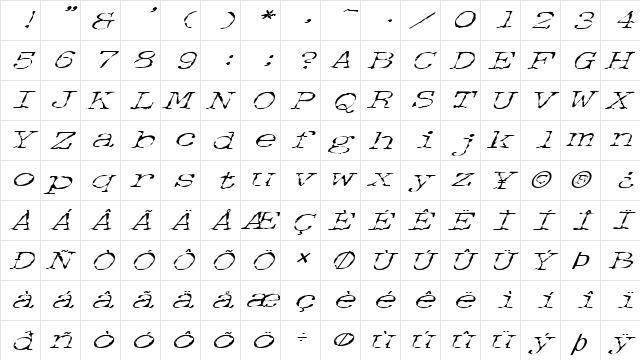
FZ DIGITAL 2 ITALIC Normal
Design Context for FZ DIGITAL 2 ITALIC Typeface
FZ DIGITAL 2 ITALIC channels digital-age aesthetics through its sharp, structured letterforms — ideal for brands that want to signal innovation. The slanted form adds forward momentum and visual energy.